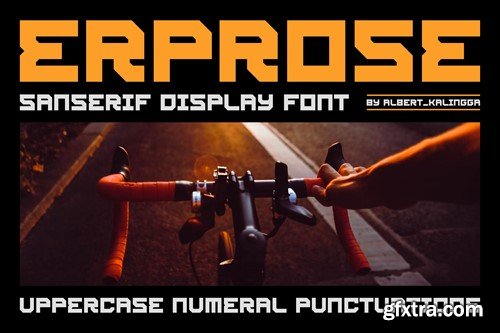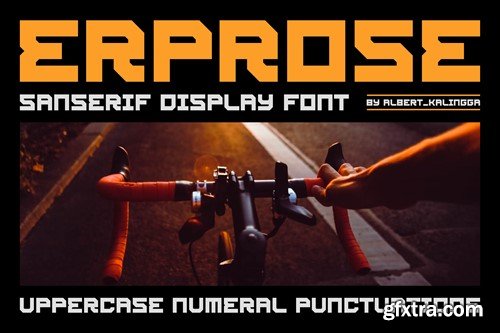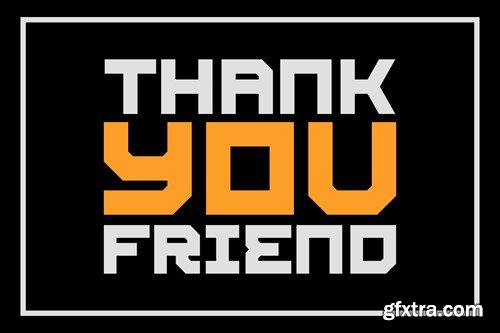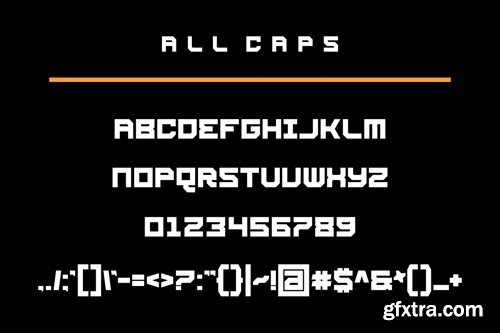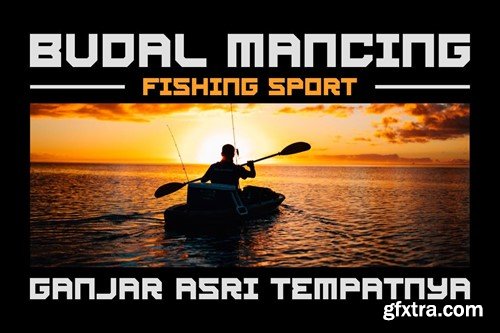
埃罗普字体 8PVM4FR
Erprose Font
Introducing our new product Erprose Font - Modern Font is a bold and authentic display font. The font is suitable for any branding project like logo, esport, and many more. outstanding in a wide range of contexts. availlable